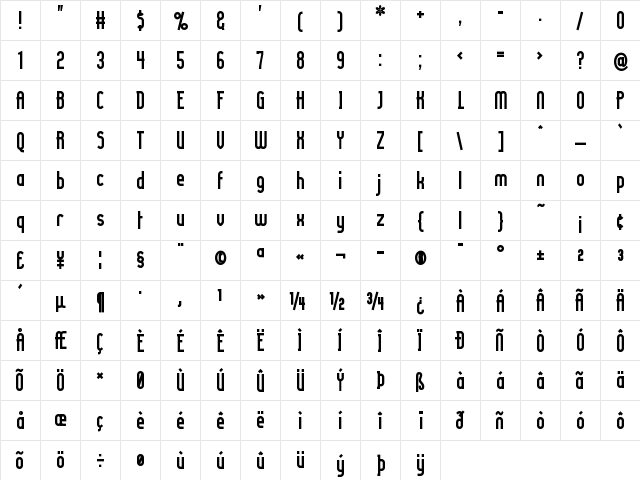
Lady Ice Revisited Bold
| Designer | Graham Meade, CybaPee & Apostrophe |
Design Context for Lady Ice Revisited Typeface
Lady Ice Revisited takes a measured approach to typography — its balanced proportions and neutral character make it a reliable workhorse for both digital and print work. Its bold stroke weight gives it real presence on the page.